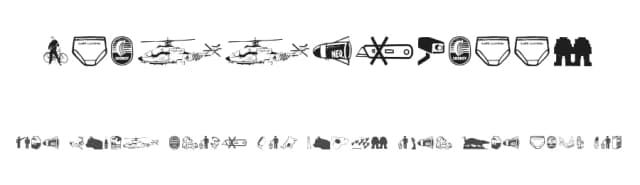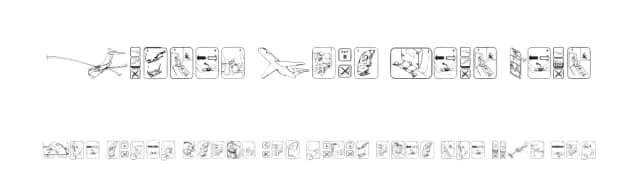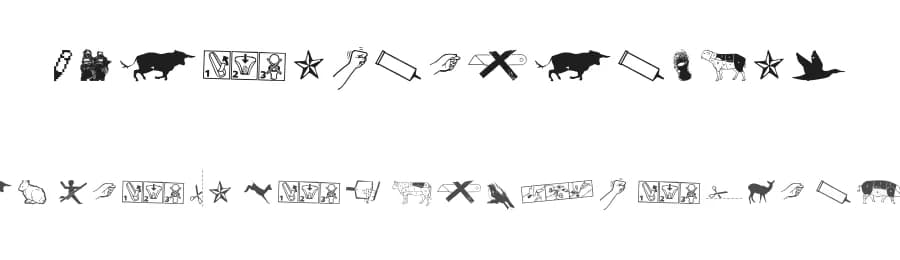
About REconstructDing Font
REconstructDing is a dingbat font designed by pheist. It includes 54 glyphs, a regular weight, OTF (CFF) format, and 89 languages. REconstructDing is free to download; check the license details on this page before commercial use. Dingbat fonts like REconstructDing work best for icons, ornaments, bullet points, and decorative accents.
REconstructDing Font is a versatile dingbats font that works for both headings and body text. Pair it with a contrasting sans-serif or serif font to add visual interest and a clear distinction between titles and body copy.
REconstructDing Font
by pheist
REconstructDing Font is a dingbats typeface by pheist, ideal for logos, invitations, branding, and creative projects.